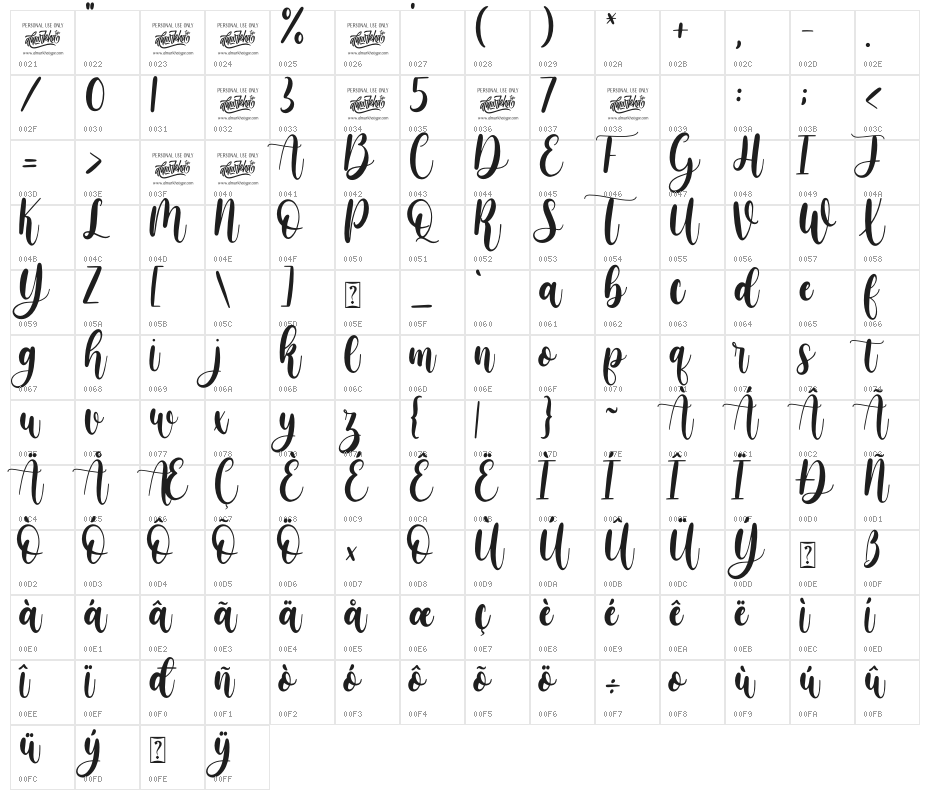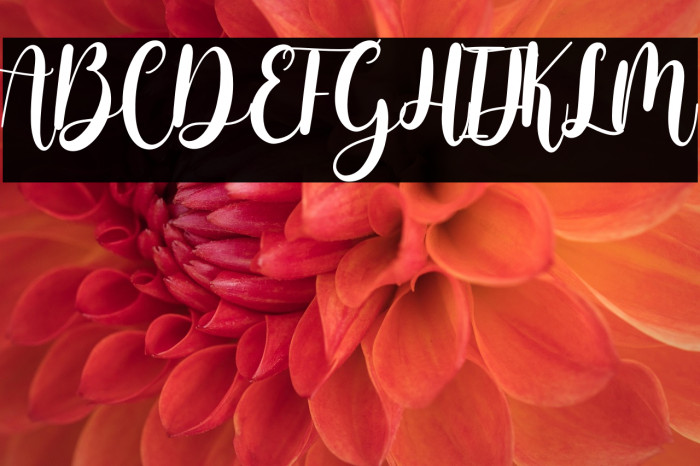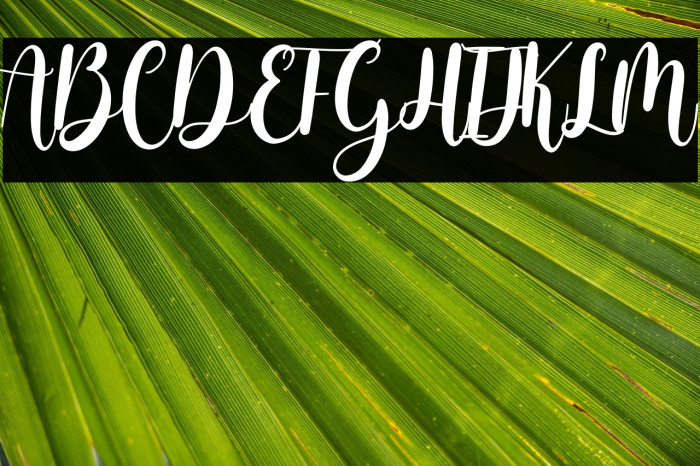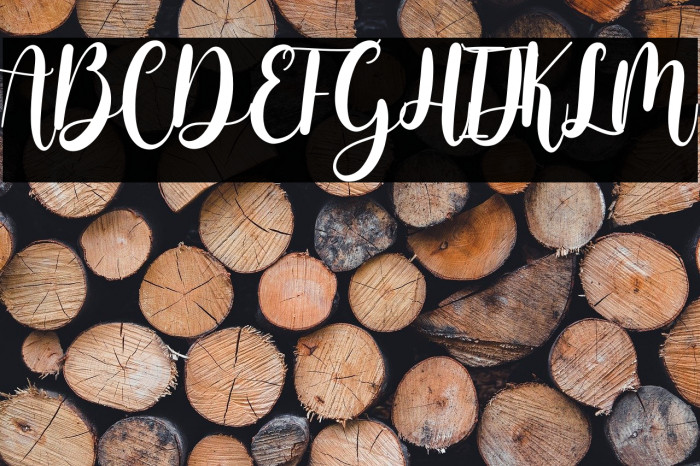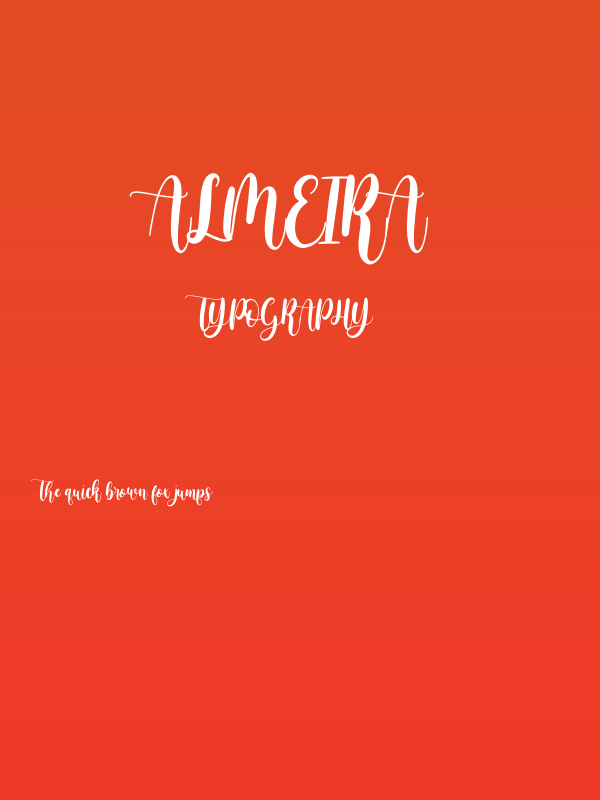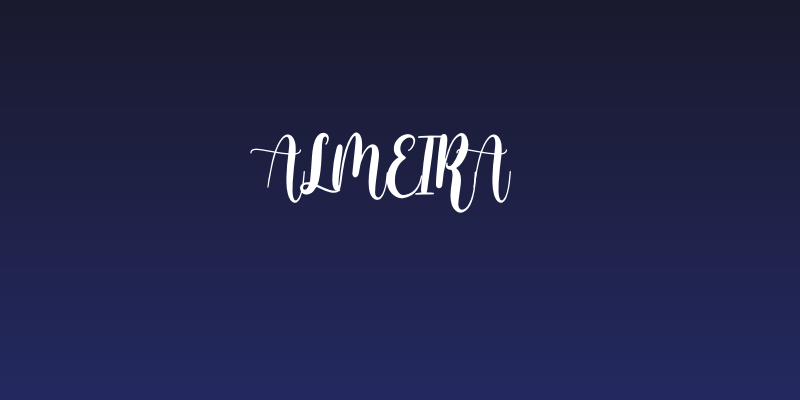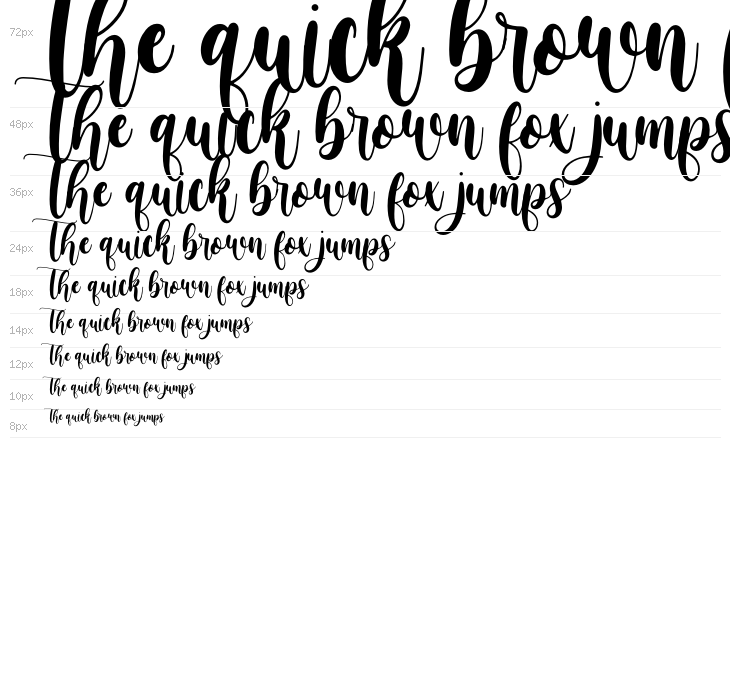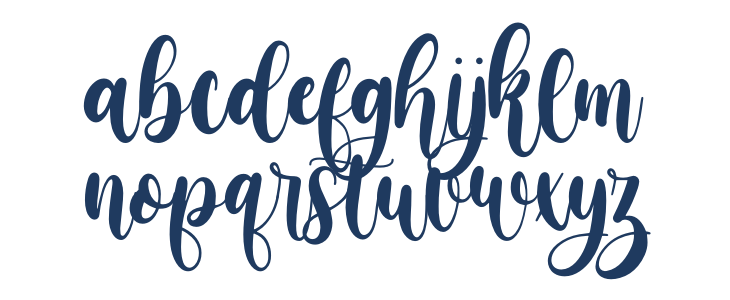
almeira Font
almeira Description
This font features an elegant and flowing script style, characterized by its smooth, cursive strokes and artistic flair. The uppercase letters are tall and graceful, with sweeping lines and loops that give a sense of movement and sophistication. The lowercase letters maintain a consistent style, with rounded forms and connected strokes that enhance the fluidity of the text. The numerals and special characters are designed to complement the overall aesthetic, with similar curves and embellishments. This font exudes a sense of elegance and creativity, making it suitable for projects that require a touch of class and personality.
| Overall Style | Elegant, Artistic |
| Proposed Projects | Ideal for wedding invitations, branding, greeting cards, and elegant logos. |